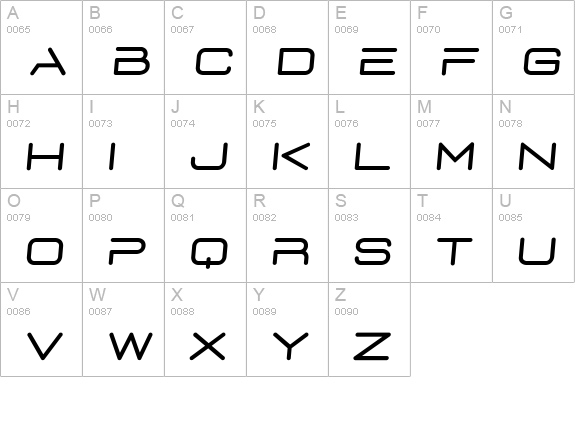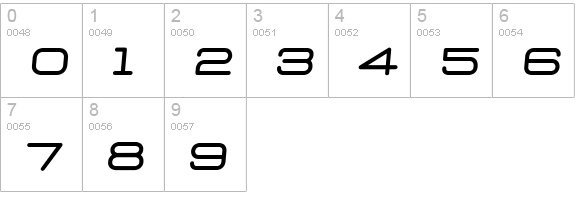
D3 Euronism italic Font Details
D3 Euronism italic is a distinctive, italic variant in the D3 typeface family \xE2\x80\x94 well suited to design and typography projects.
Introducing D3 Euronism Italic Font, a breathtaking addition to your typographic arsenal. This font exudes an air of elegance and sophistication, making it the perfect choice for projects that require a touch of refined beauty. With its graceful curves and delicate strokes, D3 Euronism Italic Font effortlessly captivates the eye and adds a sense of modernity to any design. But what truly sets D3 Euronism Italic Font apart is its incredible versatility. Whether you're working on a logo, a website, a magazine layout, or any other creative endeavor, this font seamlessly adapts to any context, enhancing the overall visual impact. Its italic design adds a sense of dynamism and movement, making it ideal for conveying emotions and capturing attention. What's even better is that D3 Euronism Italic Font is available for free download at FontsMarket.com. Yes, you read that right - this stunning font can be yours without spending a single penny. FontsMarket.com, a trusted source for high-quality fonts, offers this font as part of their extensive collection, ensuring that you have access to the finest typographic resources at your fingertips. So, why wait? Elevate your designs with D3 Euronism Italic Font and unleash your creativity like never before. Embrace its elegance, embrace its versatility, and most importantly, embrace the fact that it's freely available for you to download at FontsMarket.com. Don't miss out on this opportunity to enhance your designs with the beauty and allure of D3 Euronism Italic Font. Download it now and let your creativity soar to new heights.